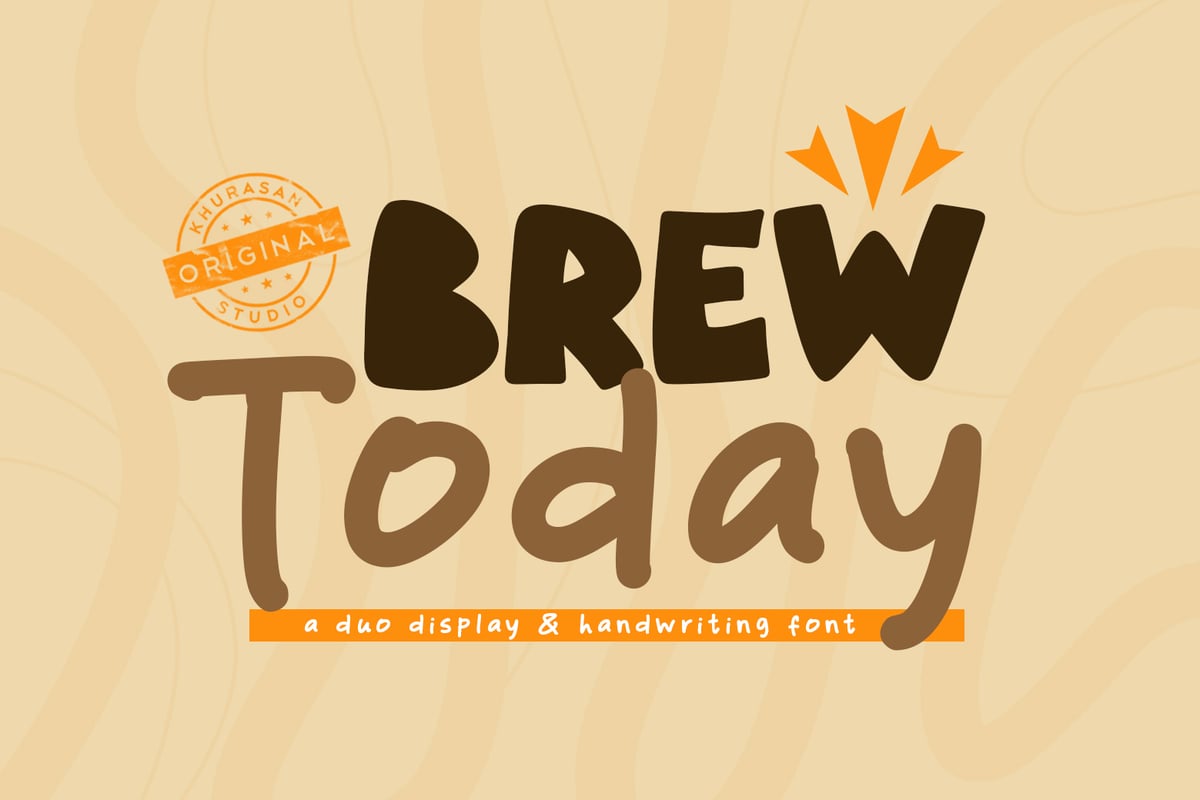
Brew Today - Cozy & Display Font
Bold, bouncy, and bursting with personality — Brew Today is the duo font your fun projects have been waiting for.
Brew Today is a quirky, expressive font pair designed to bring cheerful energy and instant character to your creative work. It combines a chunky, bold display style featuring unique swirl accents with an organic handwritten companion, creating an eye-catching contrast that grabs attention right away.
The playful shapes, thick cutouts, and handcrafted feel make this typeface perfect for any design that needs to feel friendly, vibrant, and approachable.
Best Used For:
- Children's book covers, comics, and story illustrations
- Food and beverage packaging, snack branding, and cartoon logos
- Apparel, kids' t-shirt graphics, and merchandise
- YouTube thumbnails, social media posts, and sticker designs
- Greeting cards, birthday invitations, and festive party supplies
Add a bold splash of fun and joy to your typography collection with Brew Today!